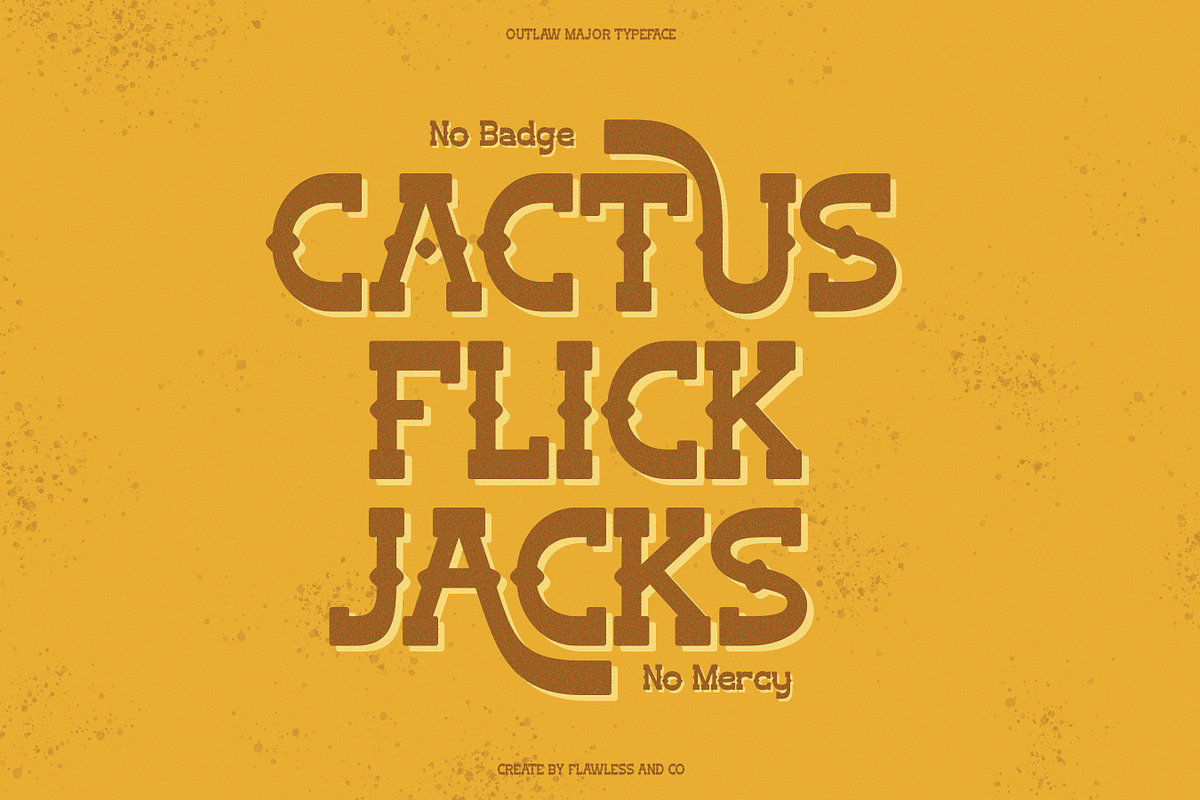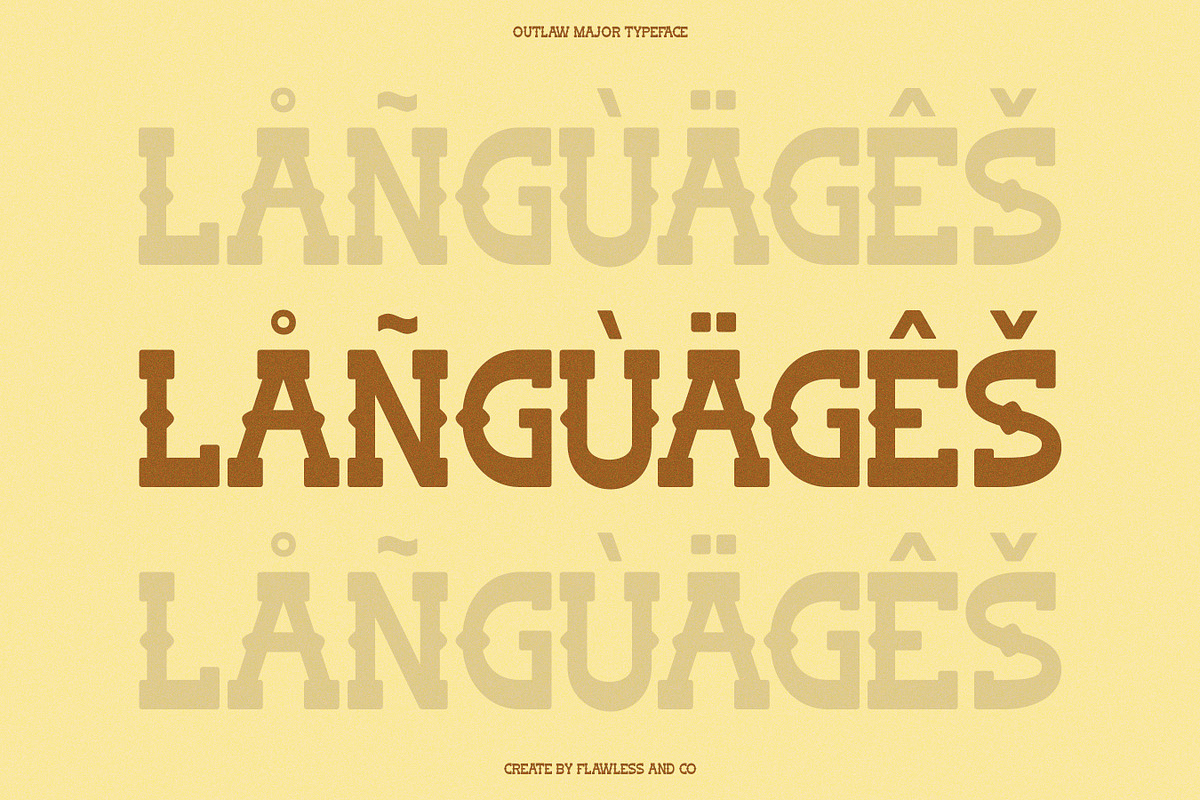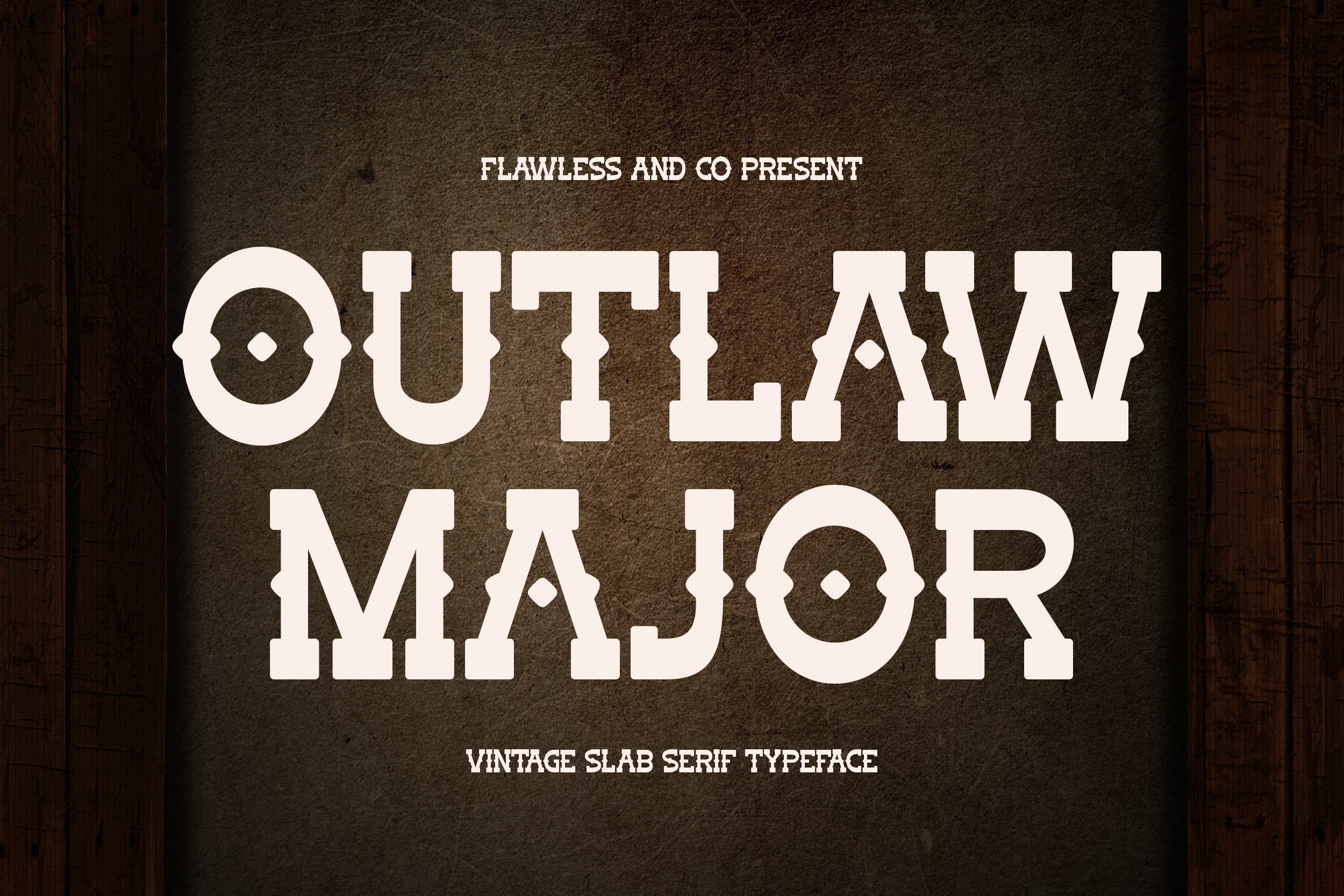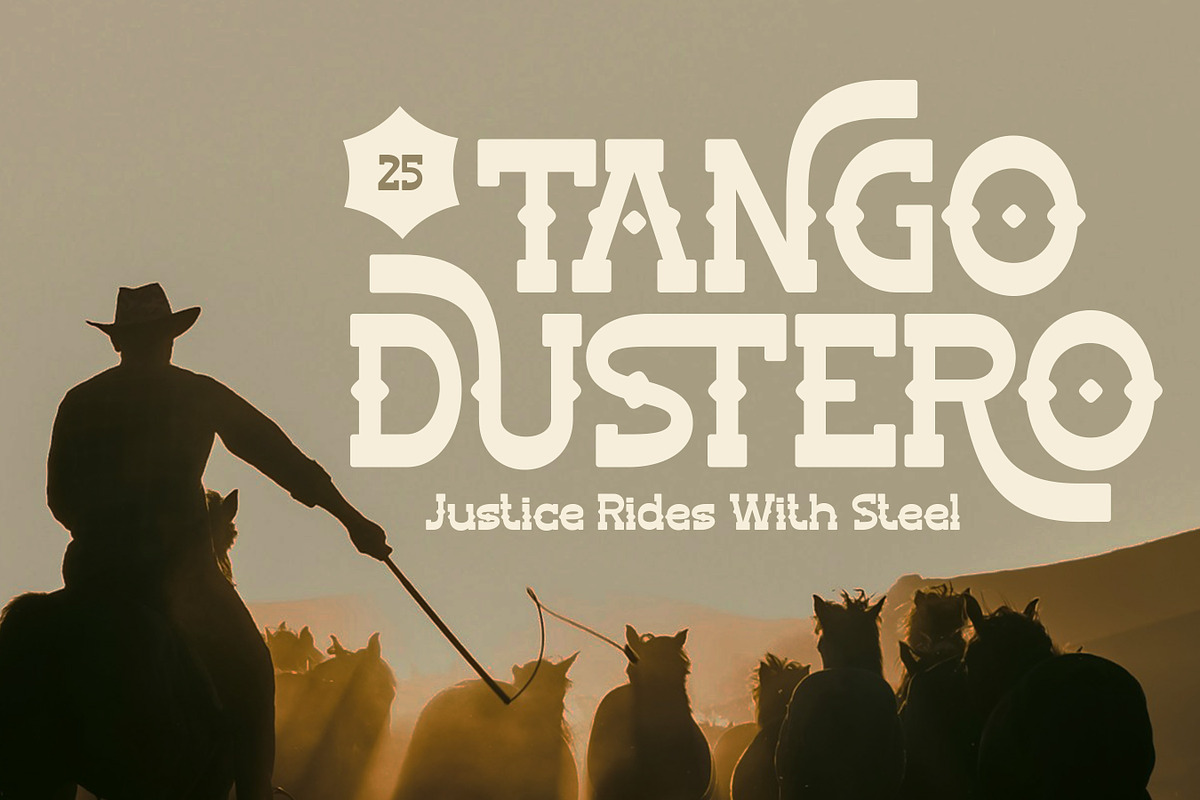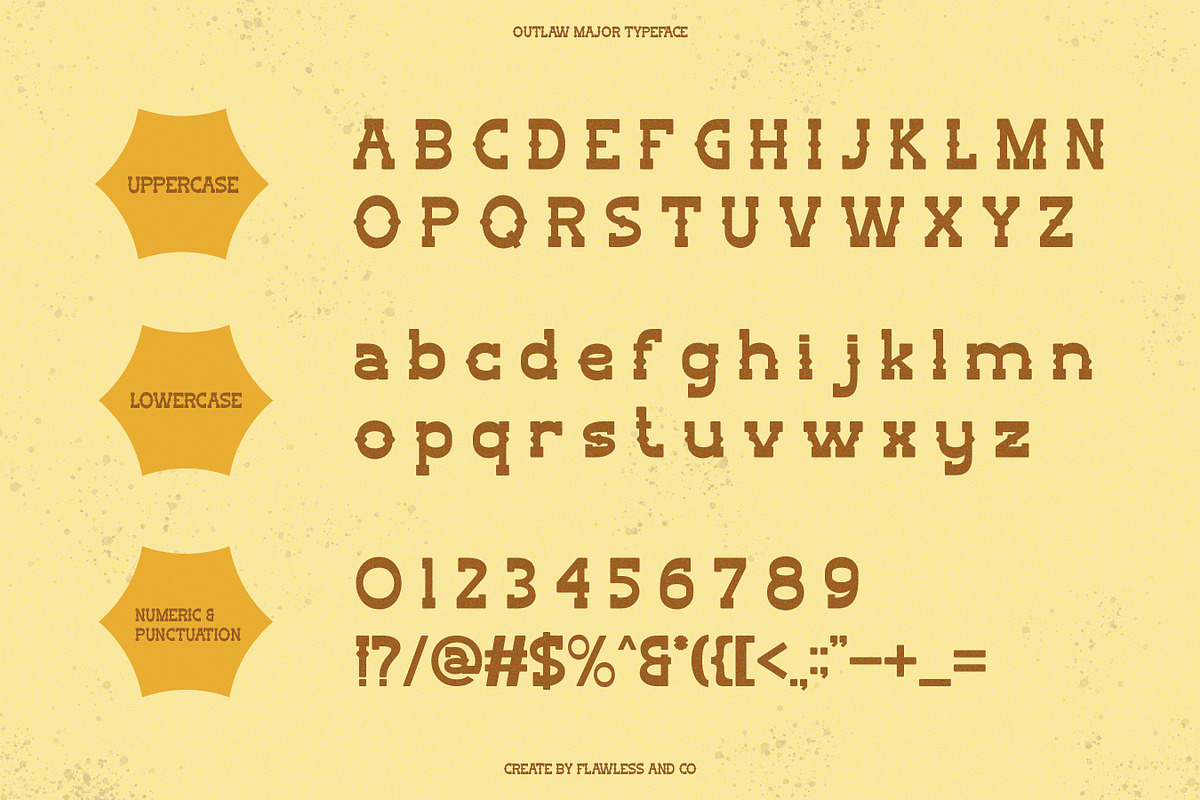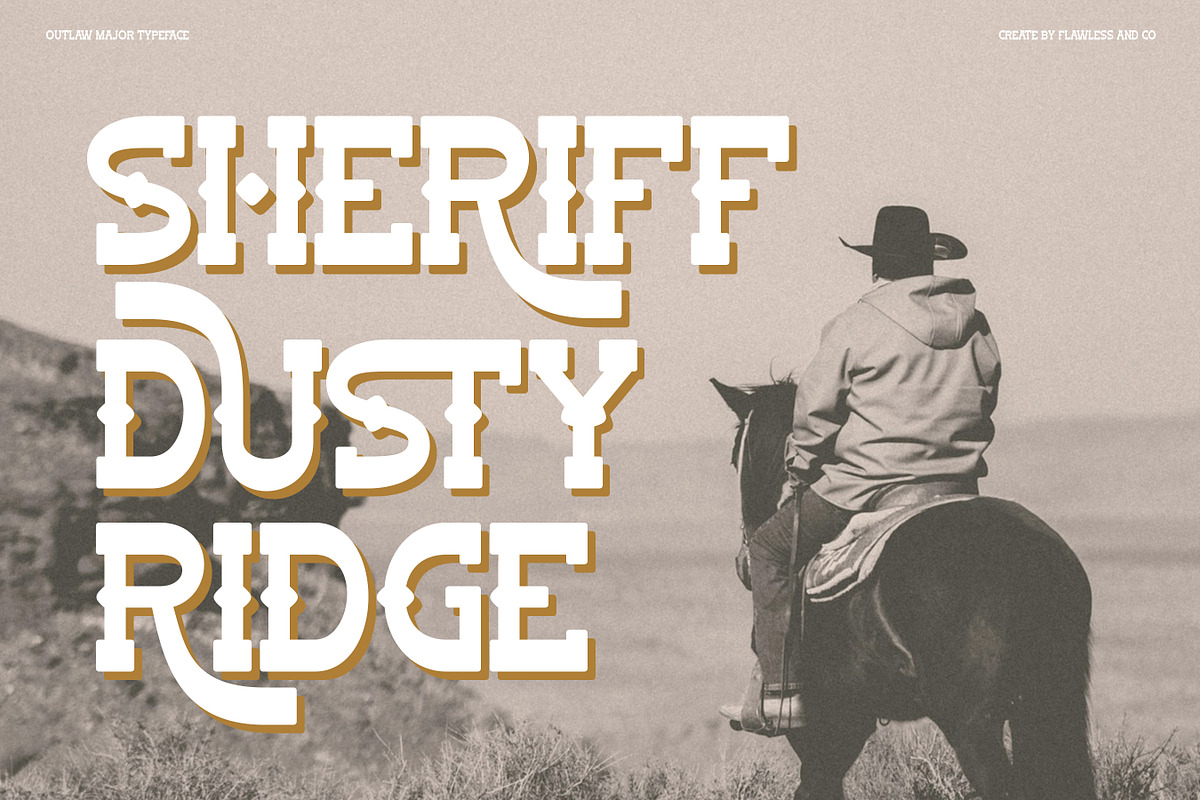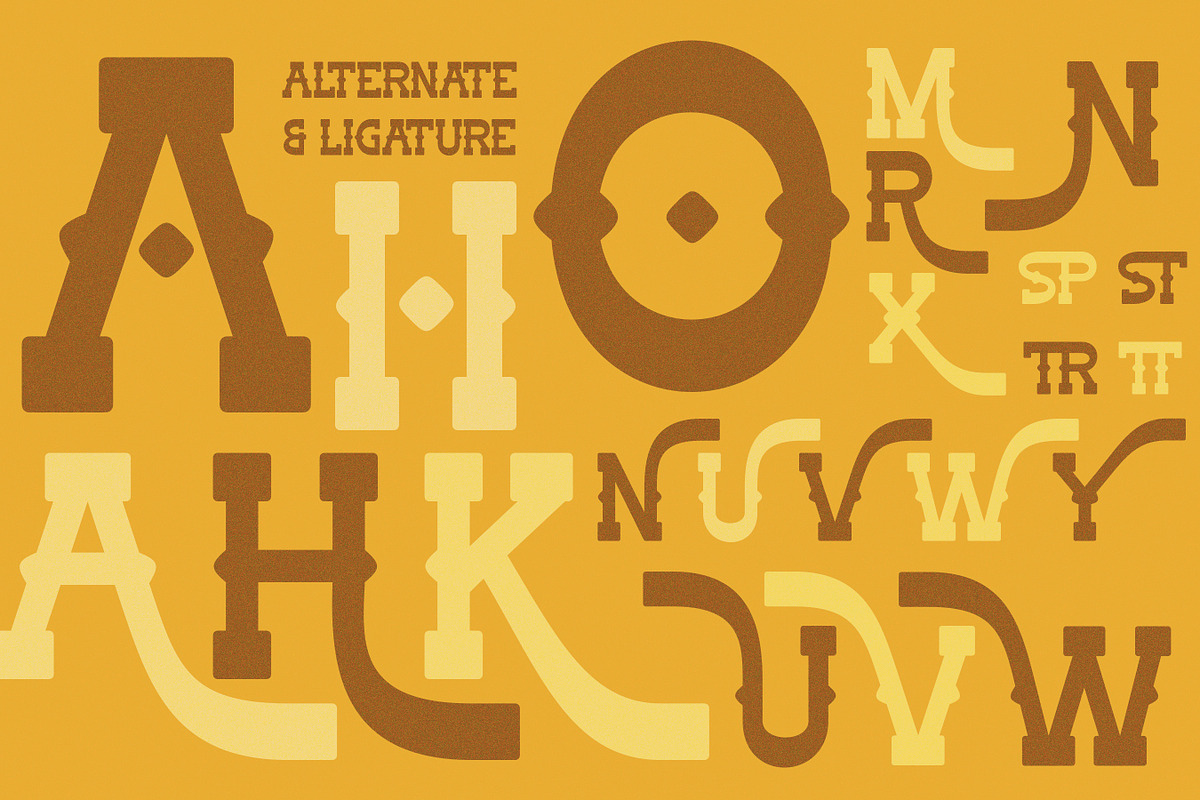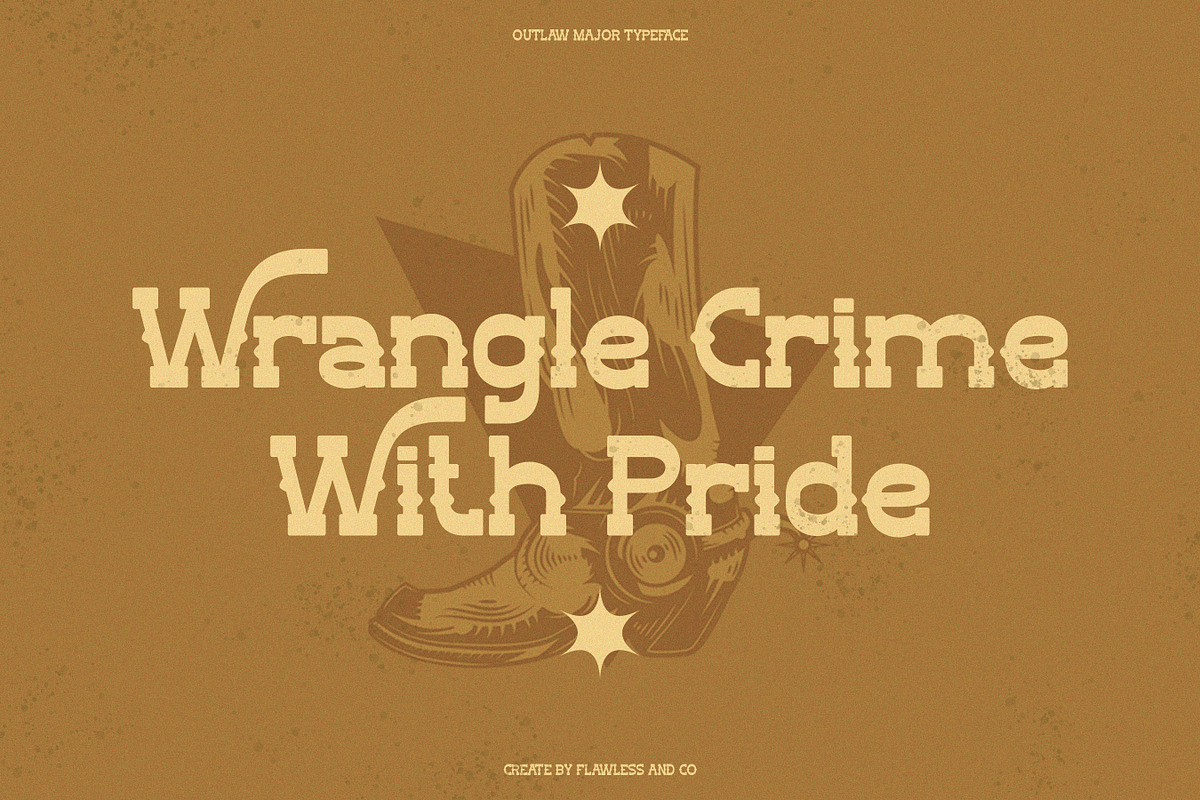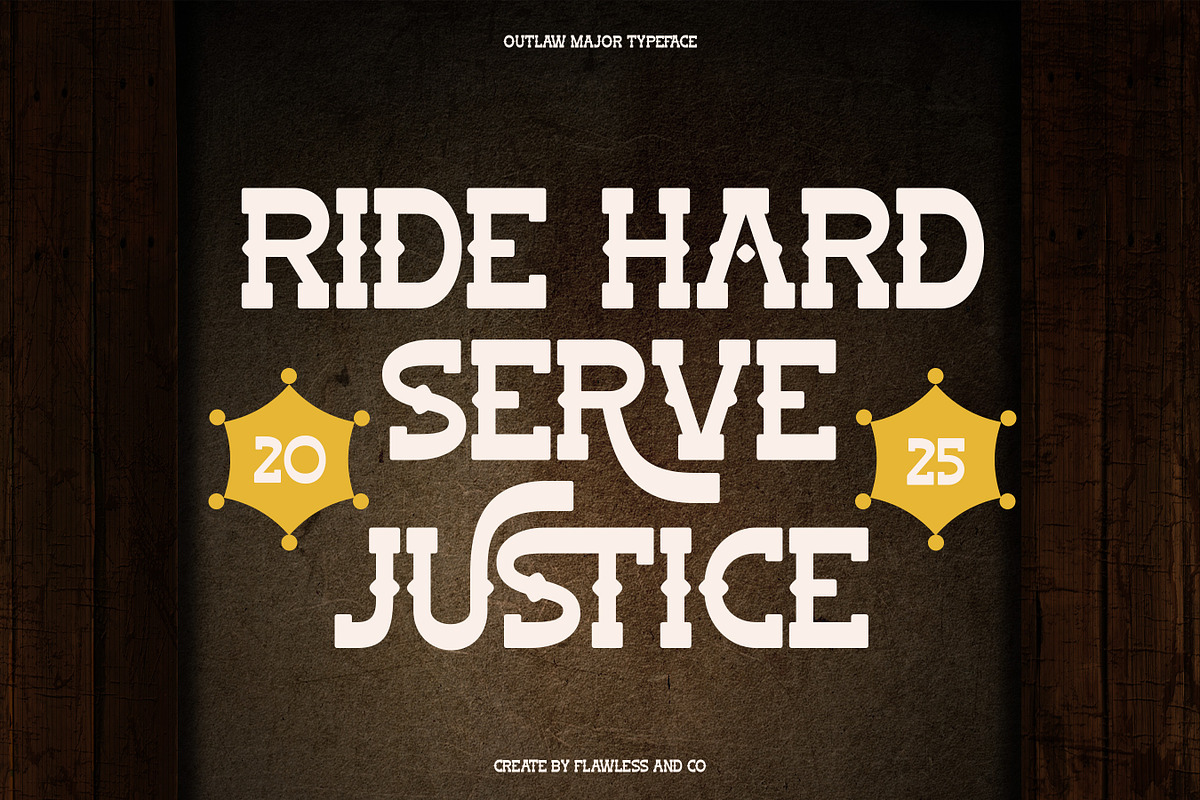
Outlaw Major - Slab Serif Font
Outlaw Major – Vintage Slab Serif Typeface
Outlaw Major is a bold and rugged vintage slab serif font that captures the true spirit of the Wild West. With its strong letterforms, unique cutout details, and authentic cowboy aesthetic, this typeface is perfect for designs that need grit, character, and a touch of frontier charm. Whether you’re creating posters, logos, apparel, signage, or branding, Outlaw Major delivers a commanding presence that stands out with style. Inspired by western saloons, rodeos, and old wanted posters, Outlaw Major is a must-have typeface for designers looking to bring a rustic yet powerful vibe to their projects.
Who Should Use Outlaw Major?
Outlaw Major is designed for creatives, brands, and designers who want to capture a bold, vintage, and western-inspired aesthetic. This font is the perfect choice for those looking to make their projects stand out with rugged strength and timeless character.
It’s an ideal font for:
Designers working on western, rustic, or vintage-themed projects Branding specialists seeking a bold, statement-making typeface Creators developing posters, signage, and merchandise with a cowboy or rodeo vibe Apparel and packaging designers wanting a rugged and authentic touch Anyone who loves the raw charm of old saloon, outlaw, and frontier-style typography
A Must-Have Font for Brand Creators and Designers
Outlaw Major is more than just a slab serif font — it’s a bold design tool built to capture attention and bring strong personality to your projects. Its rugged yet stylish look makes it a must-have for brand creators, logo designers, and visual storytellers who want their work to feel powerful, authentic, and unforgettable. Whether you’re designing western-inspired branding, bold merchandise, or impactful posters, Outlaw Major gives your designs the fearless edge they need to stand out.
Why Choose Outlaw Major for Brand Projects?
Outlaw Major stands out as a slab serif font that blends strength, style, and character. Its bold structure and striking letterforms make it the perfect choice for brands that want to communicate confidence and originality. With its western-inspired yet modern touch, this font brings a powerful presence to any visual identity. By choosing Outlaw Major, you’re not just selecting a font — you’re investing in a design asset that gives your brand a distinctive voice, ensuring your logo, packaging, and marketing materials leave a lasting impression.
Suitable For:
- Brand identities and bold logo design
- Product packaging with a strong and memorable look
- Posters, flyers, and promotional materials
- Vintage and western-themed projects-
- Editorial layouts and magazine headlines
- Apparel, merchandise, and label design
- Social media graphics with a rugged style